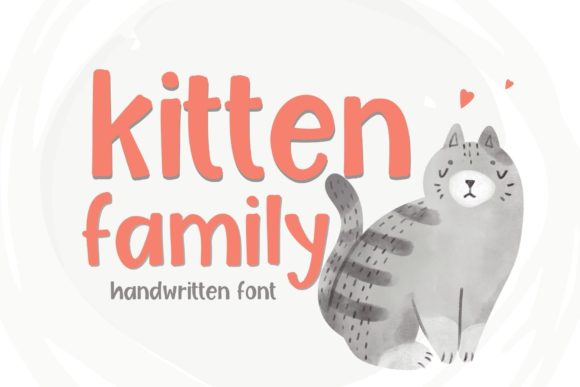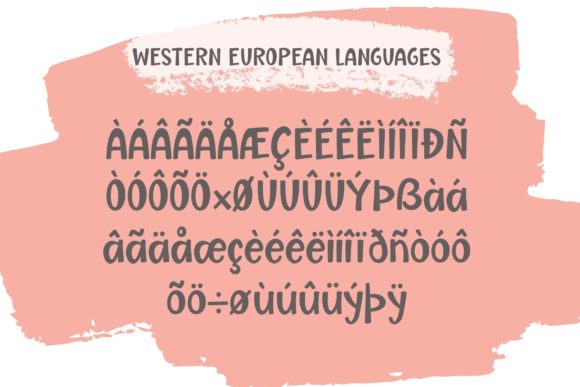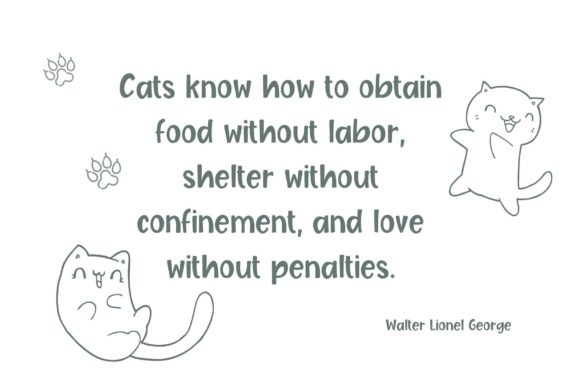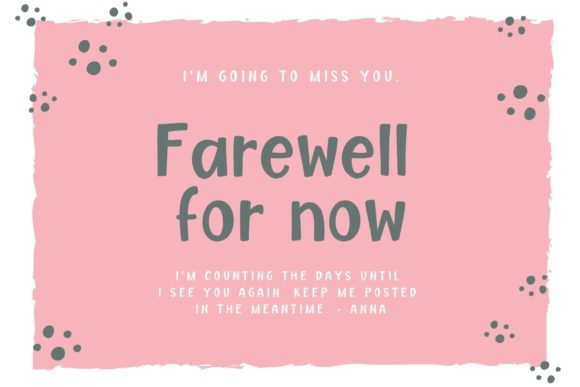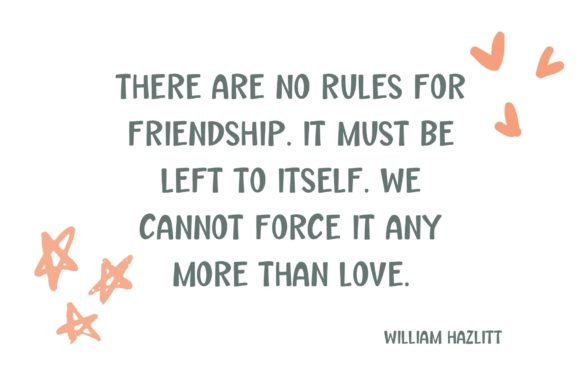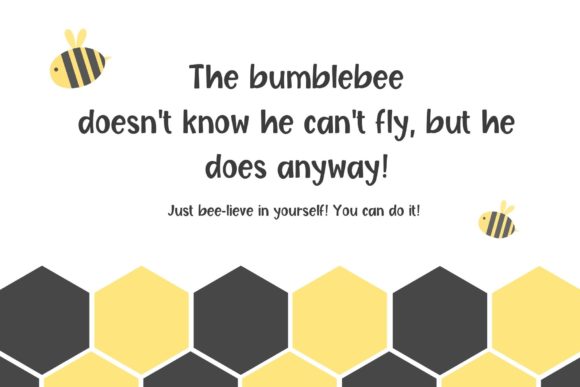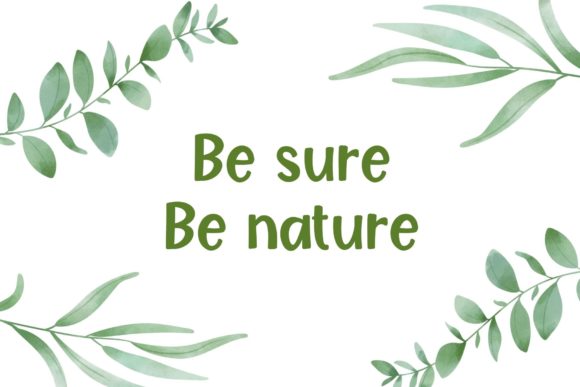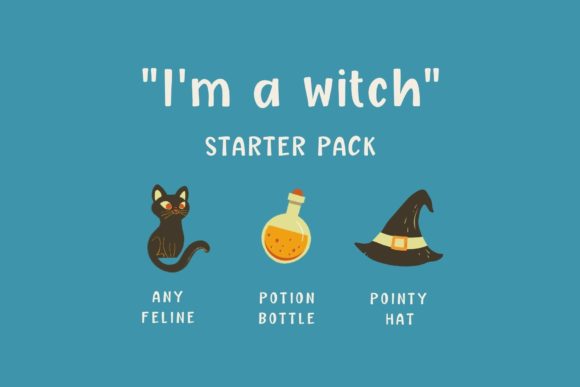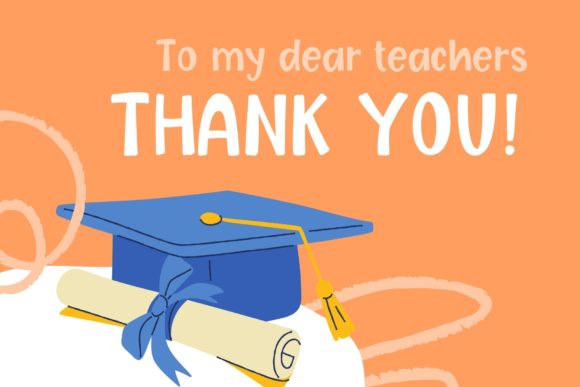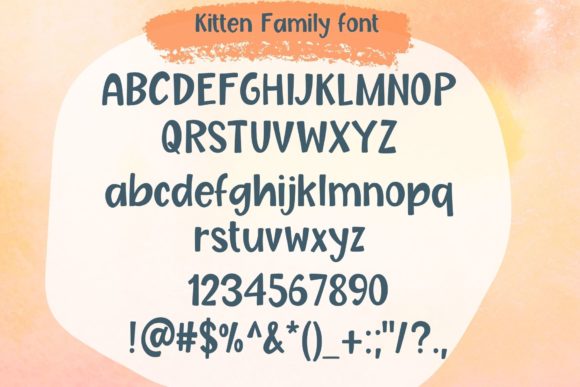
Kitten Family Font
About Kitten Family Font
Kitten Family is an enchanting and whimsical handwritten font that brings a sense of playfulness and joy to every design it touches. With its adorable and quirky letterforms, this font is like a delightful gathering of cute little kittens, ready to infuse your projects with a dose of charm and cheerfulness.
From the moment you set eyes on Kitten Family, you’ll be captivated by its unique and endearing style. Each letter is meticulously handcrafted, exuding a sense of warmth and personality that instantly puts a smile on your face. Whether you’re designing invitations for a children’s party, creating fun and engaging social media posts, or crafting playful logos, Kitten Family adds a touch of whimsy that sets your creations apart from the rest.
The versatility of Kitten Family is truly remarkable. Its ability to adapt to various design contexts makes it an ideal choice for a wide range of projects. Let your creativity run wild, and watch how this font effortlessly complements each of your creative ideas, turning them into delightful works of art.
Not only is Kitten Family charming, but it’s also easy to use. Its legible and clear letterforms ensure that your message comes across with clarity and delight. Each character has its own unique flair, creating a harmonious and delightful visual experience.
Bring your designs to life with the vibrant energy of Kitten Family. Whether you’re crafting adorable greeting cards, adding a touch of playfulness to a website, or designing captivating posters, this font infuses your work with a sense of childlike wonder and happiness.
As you explore the endless possibilities with Kitten Family, you’ll find that it’s not just a font – it’s a companion that sparks inspiration and creativity. Its joyful nature invites you to experiment, embrace spontaneity, and infuse your projects with a sense of joy and lightheartedness.
With Kitten Family, every design becomes a celebration of imagination and innocence. It’s a font that transports your audience to a world of happiness and carefree delight, reminding them of the simple joys that make life so wonderful.
Embrace the irresistible charm of Kitten Family, and let it be the perfect addition to your creative toolkit. Add this beautiful font to each of your design projects, and experience how it makes them come alive with a spirit of playfulness and magic. Get ready to witness the smiles it brings to faces and the joy it spreads with every stroke of the pen. Kitten Family is the font that takes your designs on a whimsical adventure, leaving a trail of happiness wherever it goes.